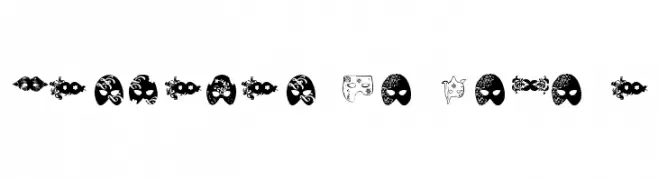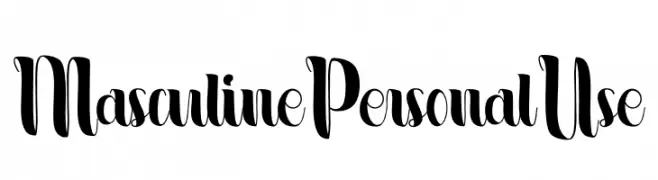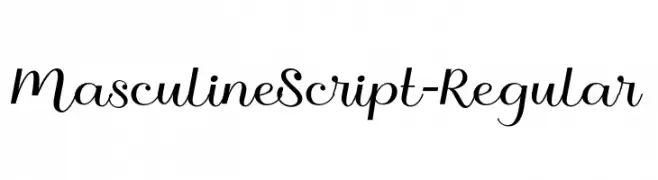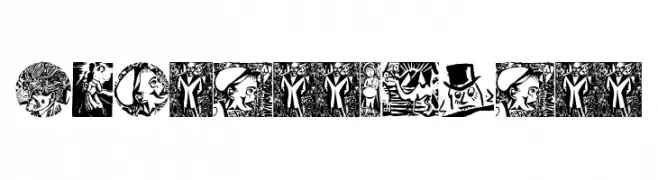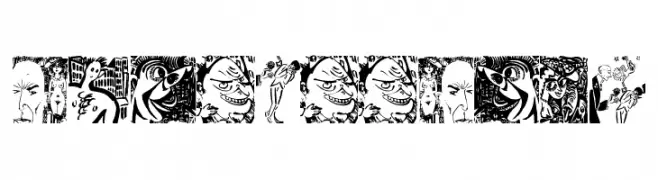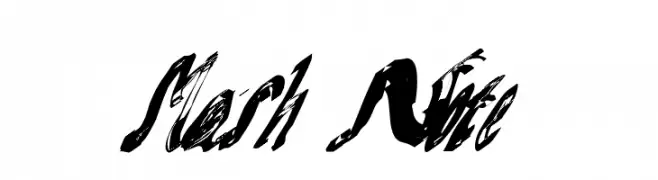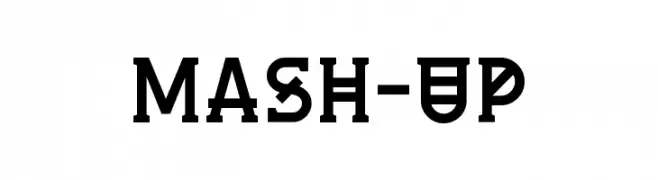
• Mascaras de Veneza
• Maschinen
• Maschinen Extended
• Maschinen ExtendedLight
• Masculine Personal Use
A bold, expressive script font with elegant flourishes and high contrast strokes.
• MasculineScript-Regular
A sophisticated script font with elegant, flowing letterforms.
• MasereelThree
A decorative, illustrative font with intricate, woodcut-style artwork in each character.
• MasereelTwo
A graphic, illustrative font with each character as a detailed scene.
• Mash Note
A bold, brush-like font with dynamic, expressive strokes.
• Mash-up
A bold, geometric font with unique letterforms and strong visual impact.